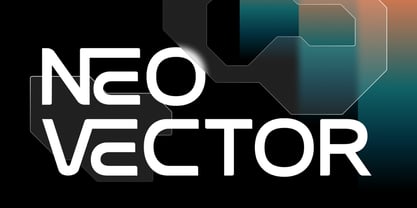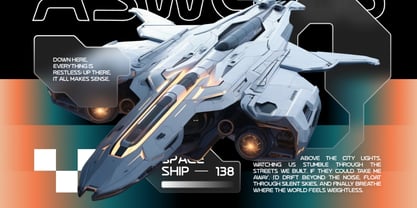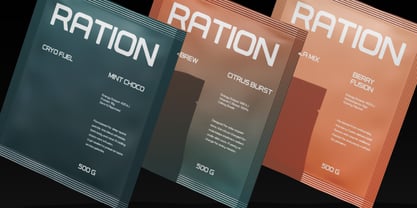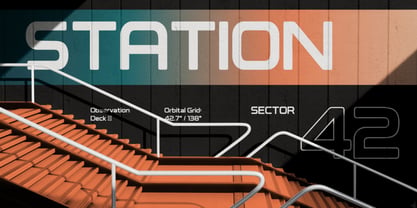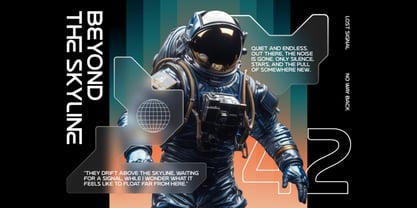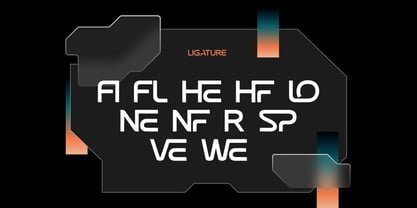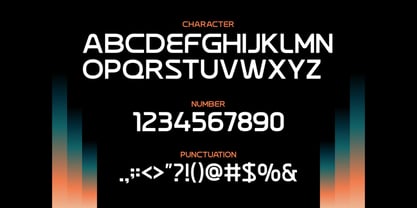
Neo Vector
by Rasio Studio
The Neo Vector Font Family was designed by Fajar Indra and published by Rasio Studio. Neo Vector contains 1 styles. More about this family
Neo Vector is a sleek and futuristic display font with geometric letterforms and refined minimal aesthetics. Designed for tech-forward branding, UI/UX design, sci-fi posters, and cutting-edge digital content, this typeface merges clean structure with innovative character shapes and experimental ligatures. With an all-uppercase character set, numbers, punctuation, and modern ligatures like "NE", "LO", and "SP", Neo Vector brings a sci-fi edge to branding, packaging, and editorial work. Relevance and Use Cases is perfect for technology branding, AI startups, science fiction posters, user interfaces, tech product packaging, app design, futuristic event posters, game UI, VR dashboards, coding websites, developer tools, clean digital presentations, tech blog headers, digital magazines.
Designers: Fajar Indra
Current Foundry: Rasio Studio